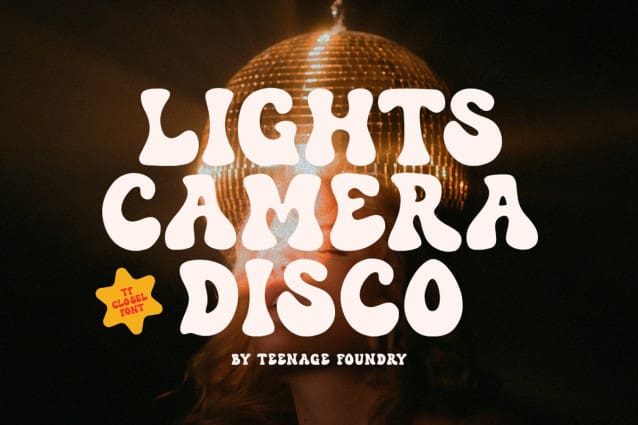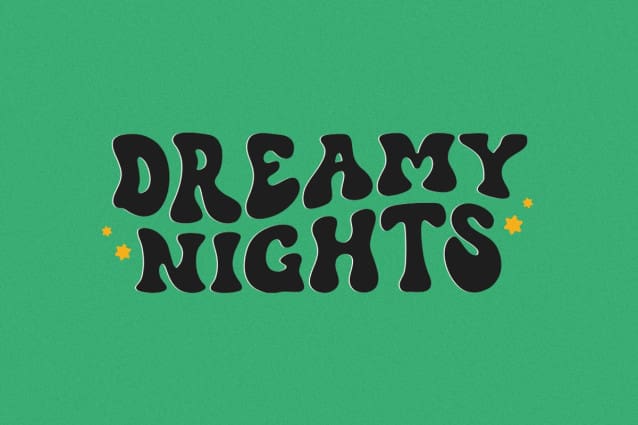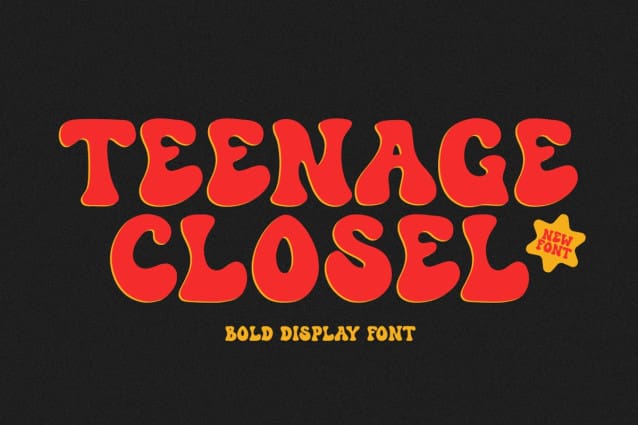
Teenage Closel Font
Teenage Closel Font – Bold Display Font By Teenage Foundry – a groovy typeface that’s sure to transport you back to the funky, psychedelic era of the 60s and 70s! With its bold, playful style and unique character, this font is perfect for adding a retro feel to your design projects.
Teenage Closel Font is incredibly versatile and can be used for a range of design projects, including posters, album covers, branding, and more. Its groovy style gives it a unique character that’s sure to make an impact.